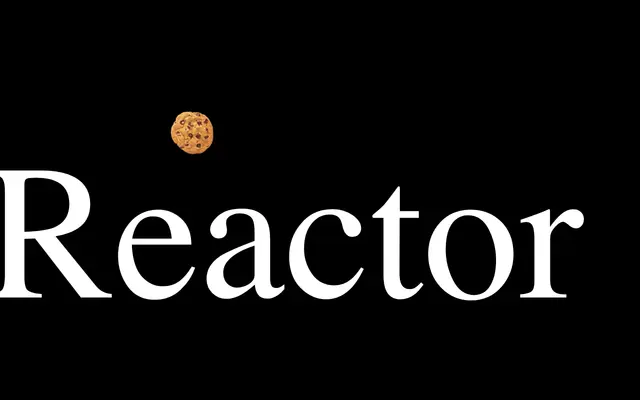
RST Reactor
A variable typeface from Reset Type Studio with axes for size, width and weight.
RST Reactor exposes three variable axes — size, width and weight — suggesting a design intended for flexible use across display and text applications. The page content is minimal, leaving specific stylistic details unclear, but the variable structure points to a contemporary, technically considered release. Reset Type Studio's output typically favours precise, structured letterforms.
The page content is too sparse to determine a precise subcategory, but the name and foundry context suggest a display-oriented typeface; categorised as display by default.